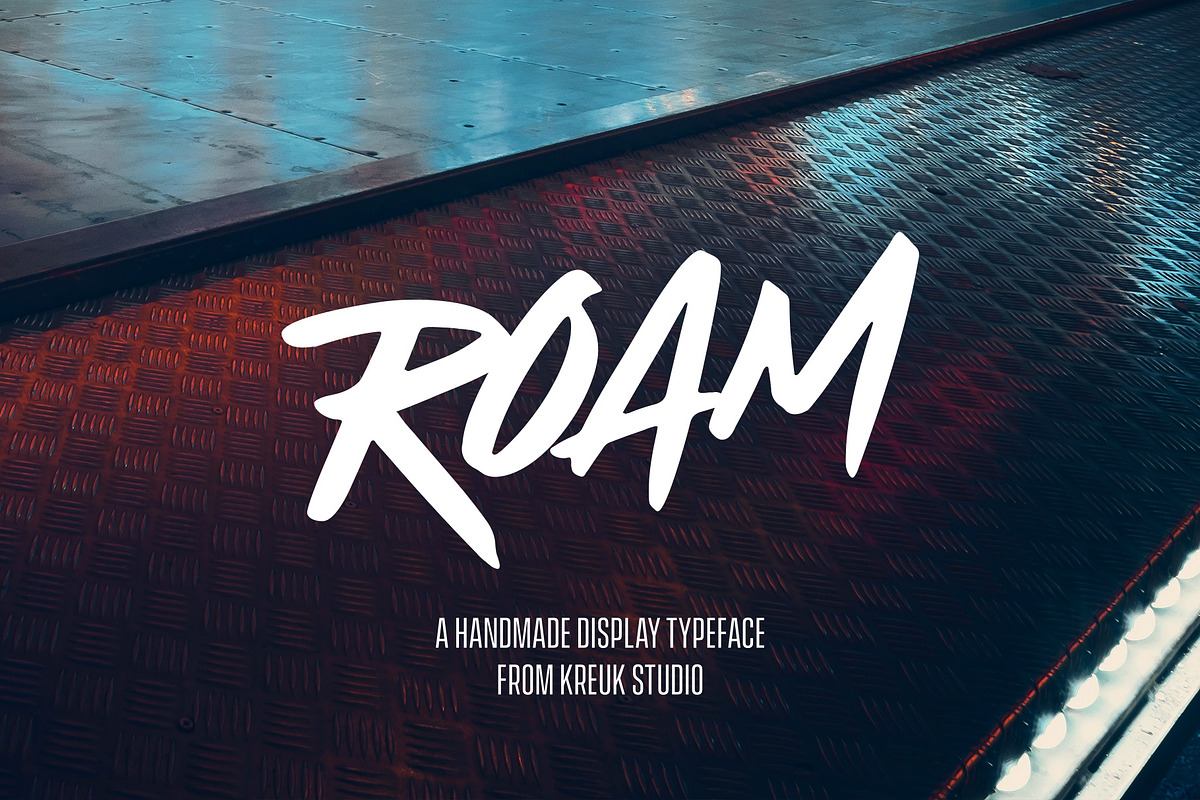
Roam Display Font Free Download is a striking and bold typeface designed to grab attention with its strong, clean lines and unique character shapes. Perfect for headlines, posters, branding, and logos, Roam Display is ideal for projects that require high impact and modern elegance.
With its carefully crafted letterforms and contemporary design, Roam Display works beautifully in both print and digital projects, adding personality and style to any design. Whether you're creating a logo for a modern brand or designing a compelling headline for a magazine cover, this font provides the visual impact you need.